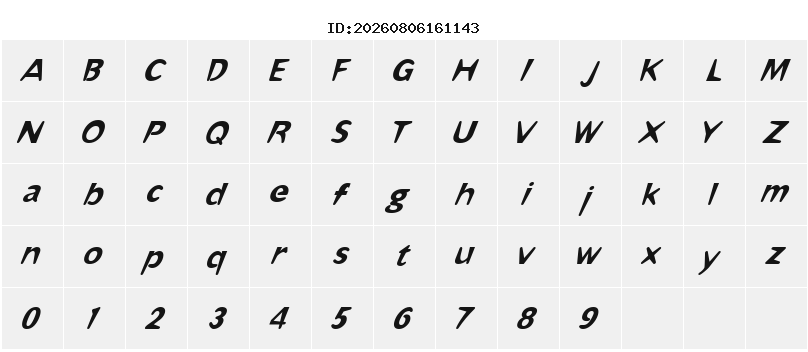
• Font Name: Omaha Italic
• Full Font Name: Omaha Italic
About Omaha Italic.ttf
Omaha Italic.ttf is a modern, elegant sans-serif font designed for ultimate readability and visual harmony. Perfect for branding, headlines, web design, and print materials.